Visiting LƯU CHỮ, Vietnam's Graphic & Type Archive
LƯU CHỮ was the highlight of my trip to Vietnam this year! I have been their observer from afar, aka internet stalker, for quite some time.
In general, a type/graphic design archive (apart from a few) usually has a website that I imagine as being very traditional and old-school, where it is difficult to find or read anything. You have to be nerd enough to know what you’re looking for, needless to say you have to know the “name”, “range of year” of the design you're looking for. For whoever is not a local, such a website might be intimidating.
To me, LƯU CHỮ is giving a different feeling. The LƯU CHỮ website looks modern and well-designed, it is easy to navigate. Even though the website is not fully translated to English yet, it is easy to browse through their image collection.
I visited Vietnam early this year. I had been following the work of Đức (@ducxcao) for a while, so I randomly texted him to ask if he would like to meet up. At that time, I had not considered a visit to the LƯU CHỮ archive – I didn't want to make it like a work-related trip. And first of all, I’d never met Đức before – I didn’t want to take much of his time on his workday or weekend. However, I wanted to connect with other Southeast Asian type designers, my tropical people. Đức told me he's currently based in Ho Chi Minh City and also helped us plan our trip by suggesting places to visit to complete our itinerary.
On the day of our meeting, Đức and I agreed on Saturday at 9 am at LƯU CHỮ. I was excited; as mentioned earlier, LƯU CHỮ was not originally in my plans. However, I am genuinely grateful for his open suggestion. I was not the one who set the time, and I would like to confirm with you all again that this was a casual meetup. Let me explain more from my observation, 9 am might seem like an "early" Saturday — it might sound like a formal meetup appointment.
But if you're in Vietnam, you will understand that everything here operates very early — the fish market operates from 2-3 am, and all cafes and Pho restaurants are entirely operated by 7-8. Consequently, everything closes relatively early, like 9 - 10 pm (just my observation). However, I would say I genuinely love an early start. People are vibing here. And I don't mind this 9 am meetup time on Saturday at all.
I snapped some images from their shared space. Please let me make another note here that we visited during the time that LƯU CHỮ, their actual space, was still in private operations. Now that it's open to the public, the setting might have already changed.
LƯU CHỮ is a graphic design archive run by Lê Quốc Huy, Cao Xuân Đức and Hà Mai Thy. It is located behind a school building. It is a small shared space between architects, graphic designers, and type designers. There are no more than 3 separate rooms in the apartment at my first glance. On that day, we met Đức and Lê Quốc (not Hà Mai Thy, who is currently based in Australia).
From their short introduction, Lê Quốc Huy focused on graphic archiving as one of his final projects in his BA. After working for a design agency for some years, he decided to quit and follow his passion for graphic archiving. With the help of Cao Xuân Đức and Hà Mai Thy, LƯU CHỮ has now grown to be an independent graphic design and type archive. The LƯU CHỮ space is also open to the public. You can make an appointment for a visit through their website in advance.
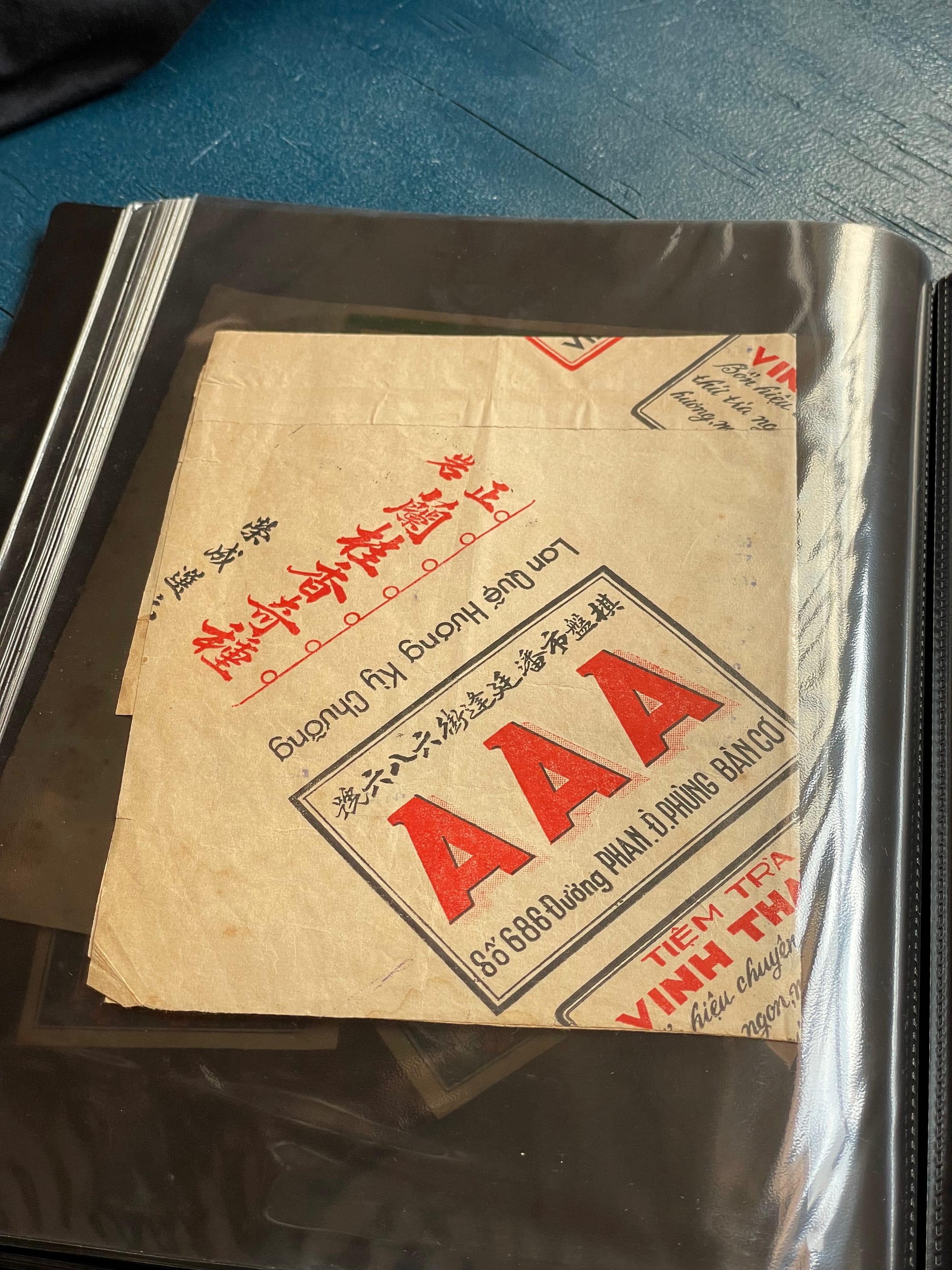
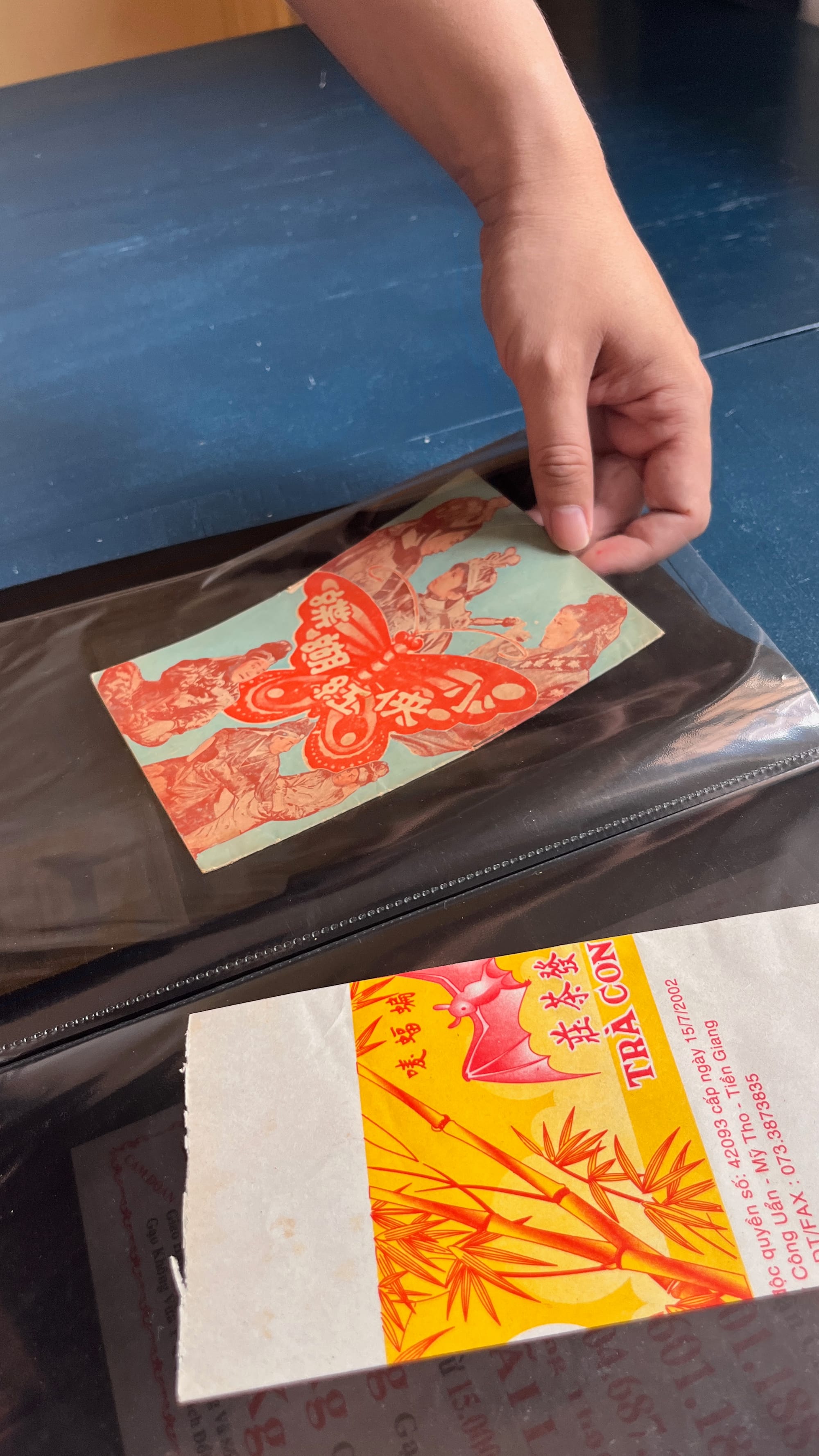
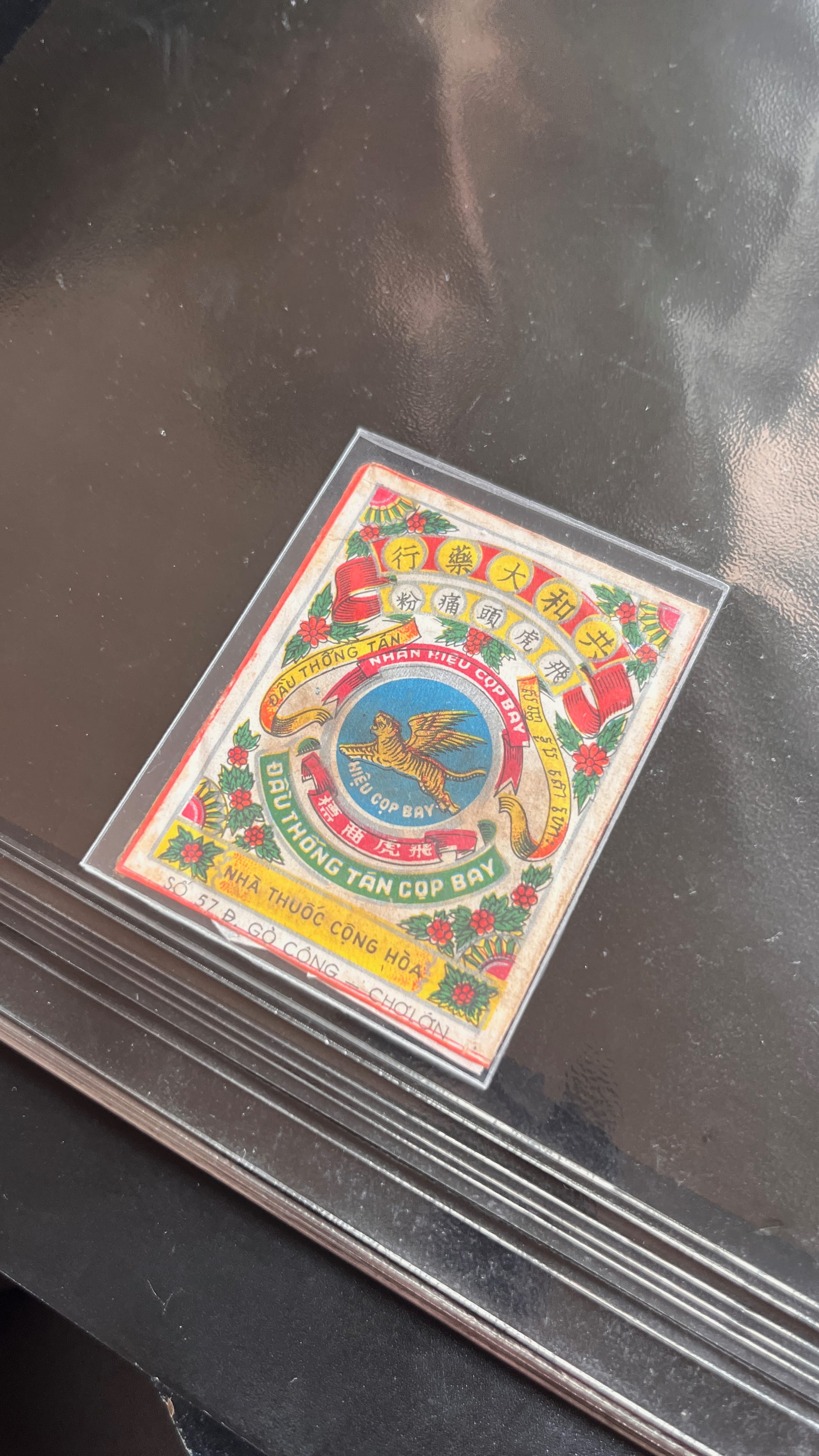
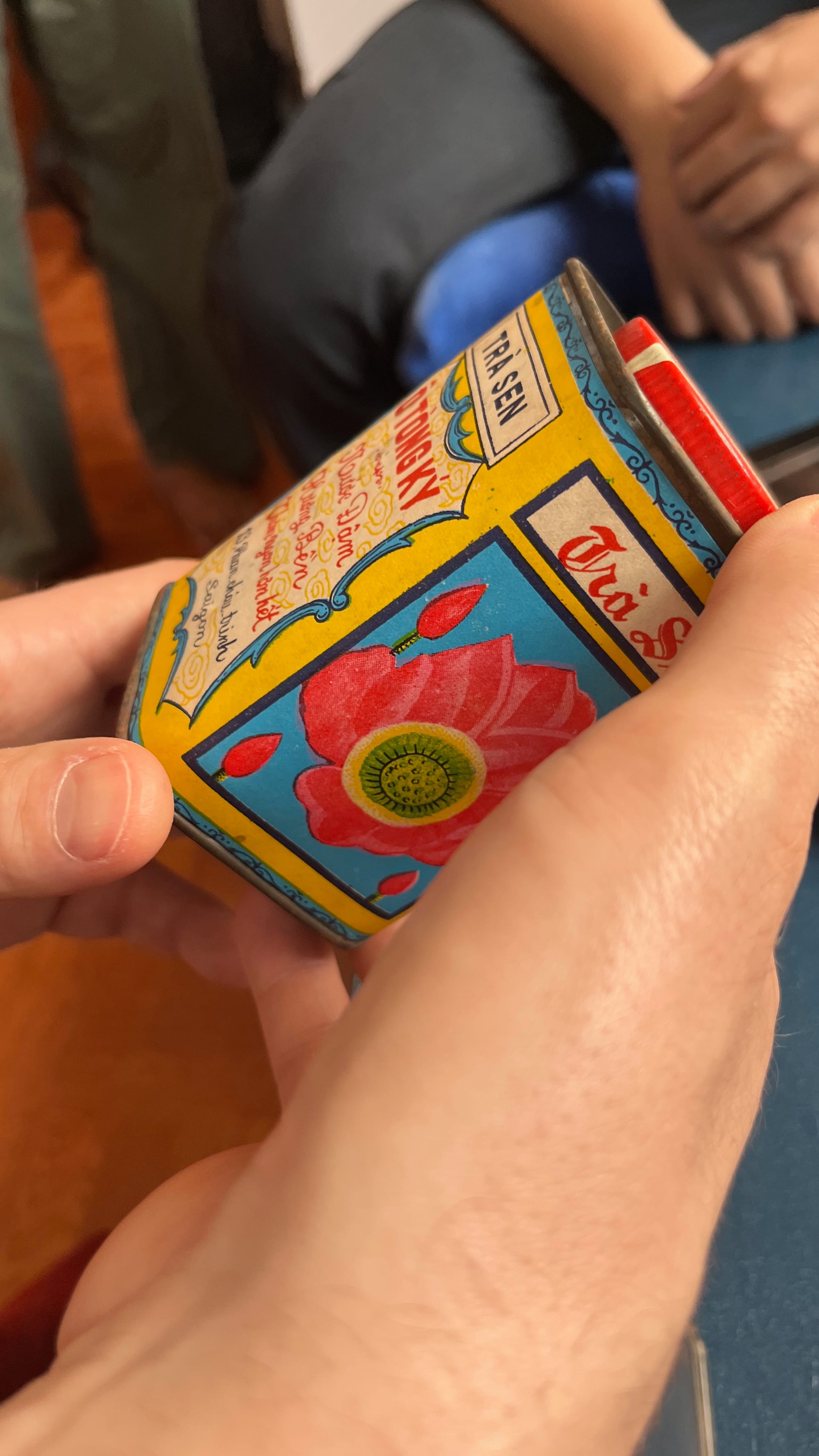
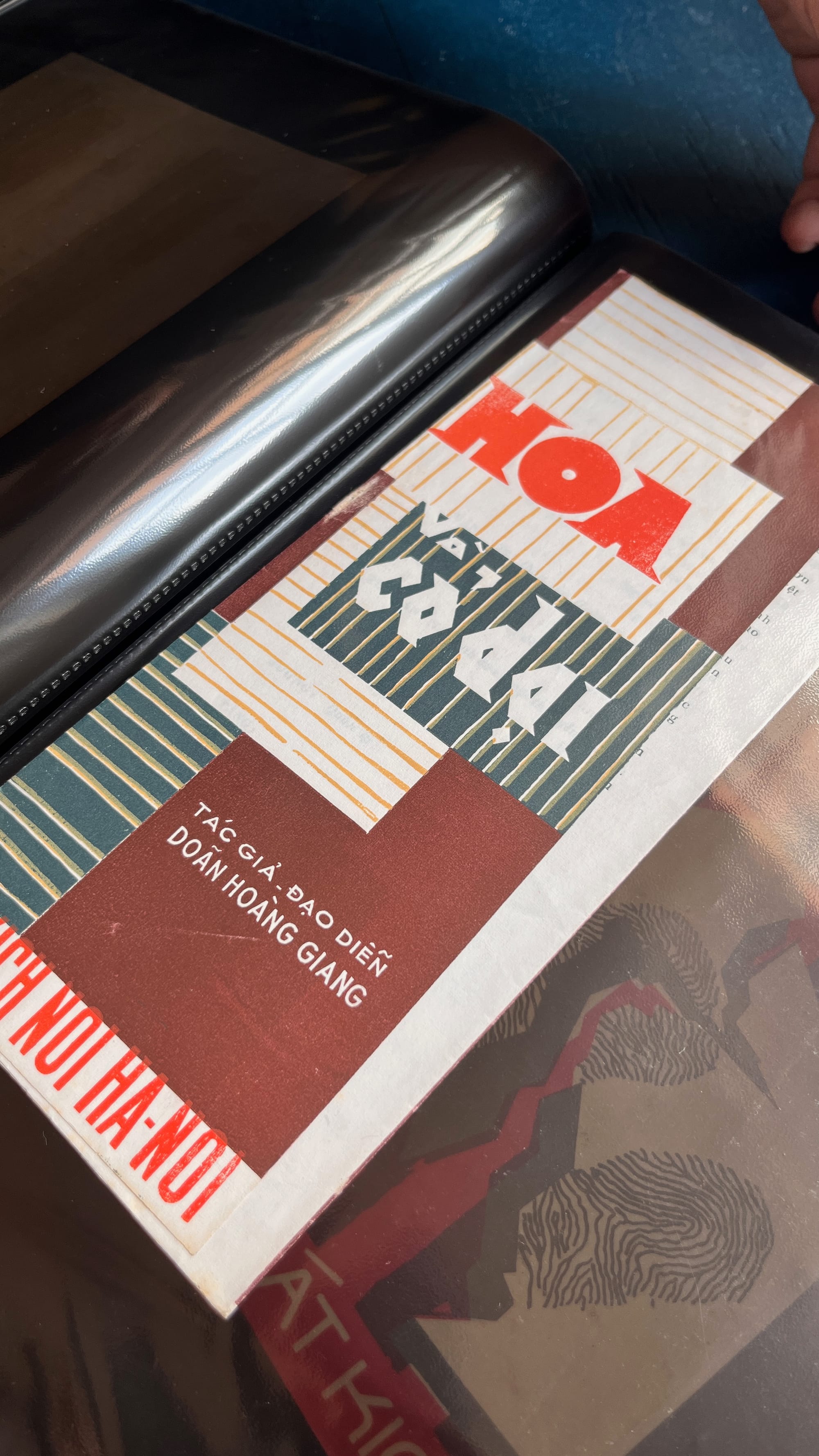
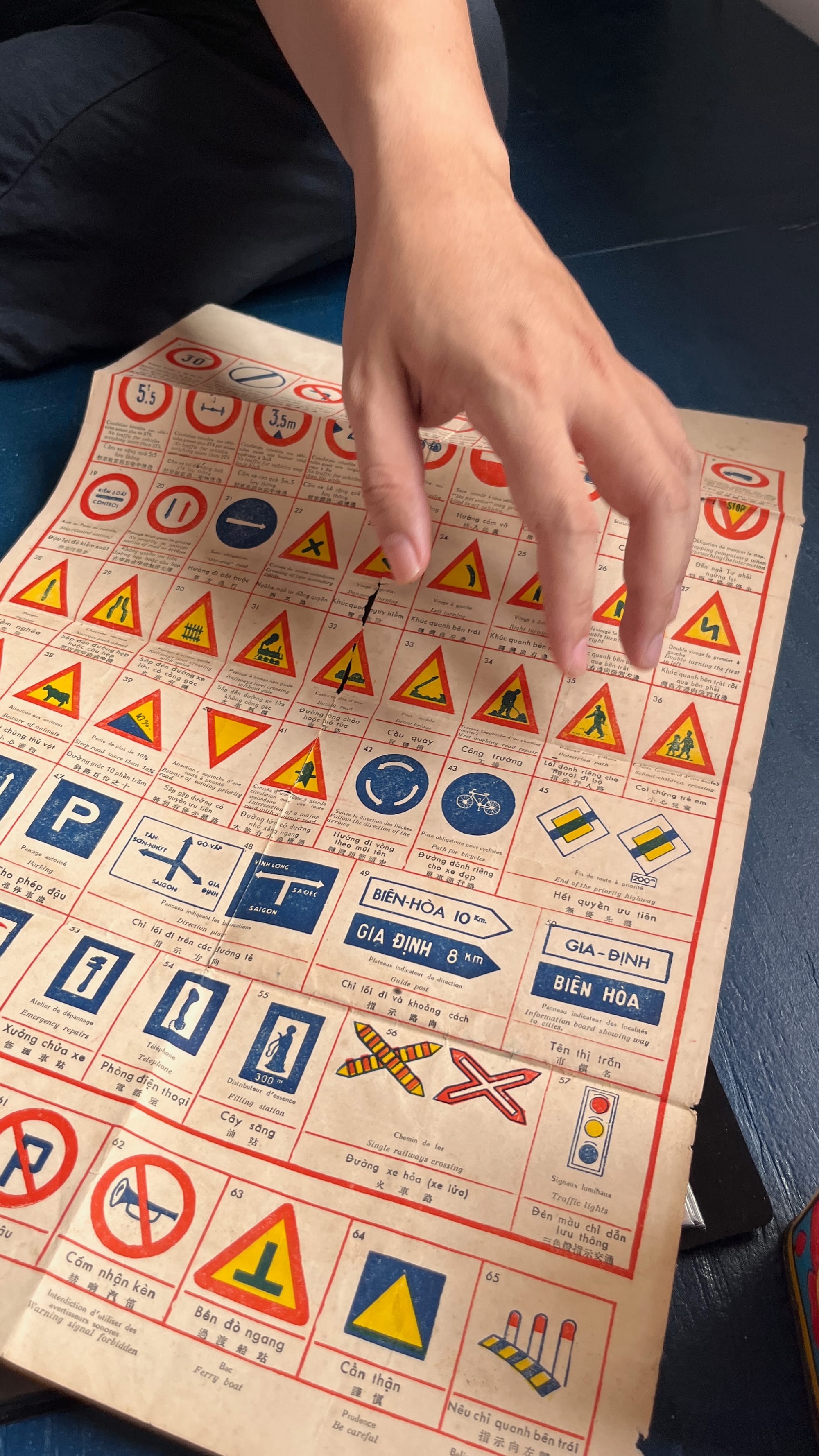
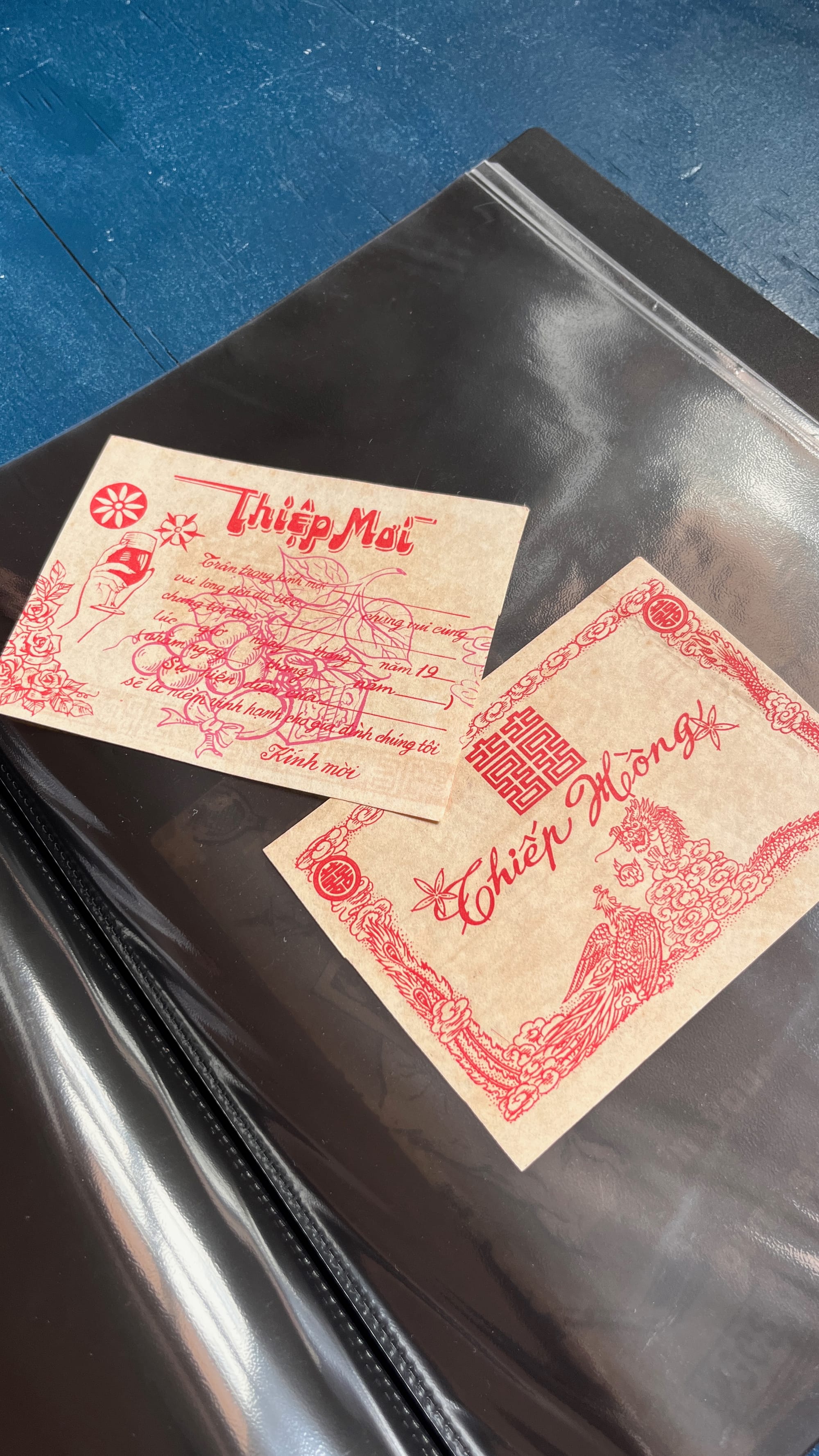
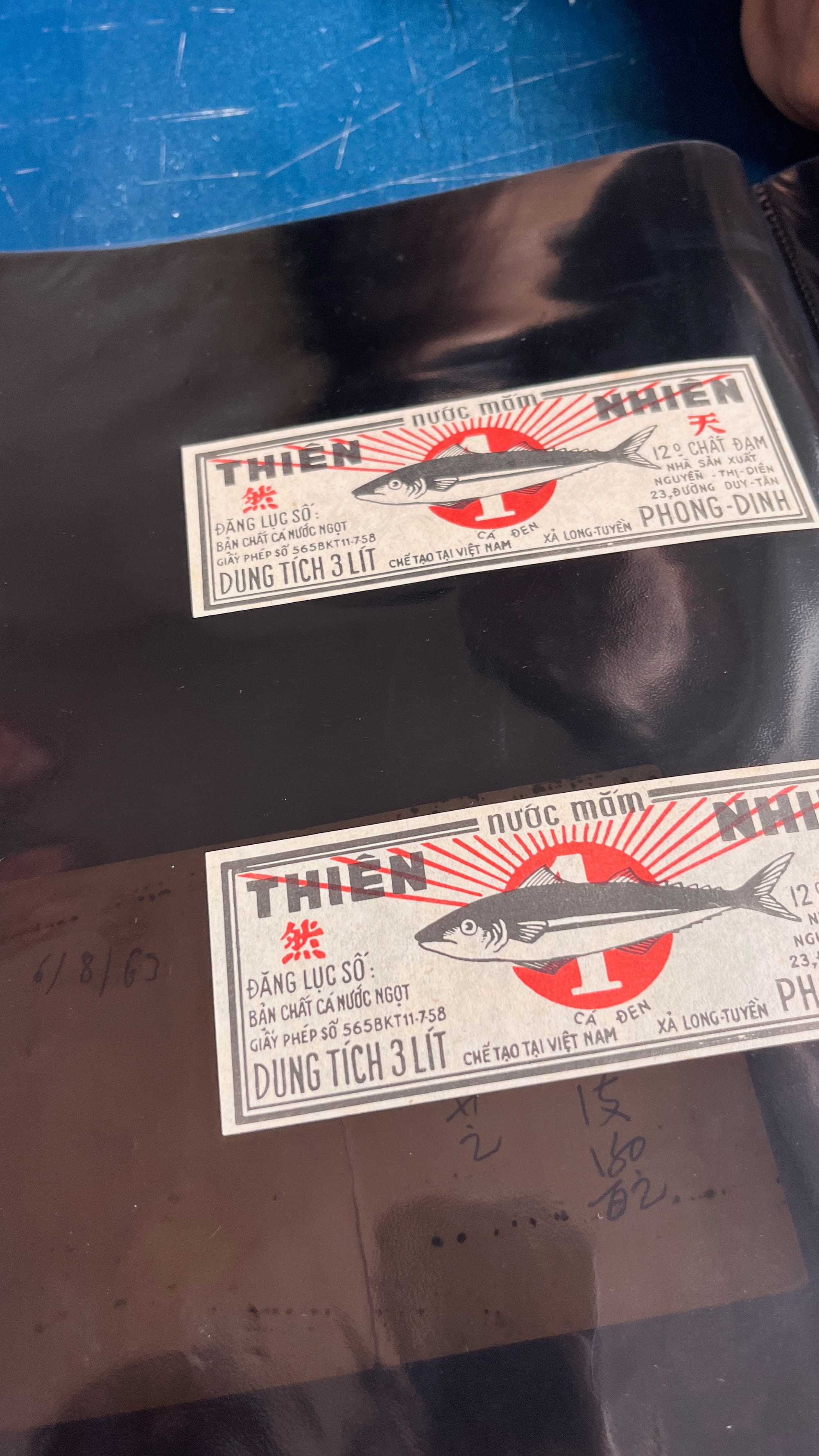
They're not only collecting visually stunning prints, but they also have more everyday items (aka ephemera) like a traffic sign instruction poster. I would say that they're an ideal archiver. They've also been collecting variations on the same design, which is quite interesting. Lastly, we cannot go without talking about the type specimens.
Photos by Frank Grießhammer
Design variations
Quốc and Đức were showing us their archive. Photos by Frank Grießhammer and I
Some of the Vietnamese type specimens Photos by Frank Grießhammer
It's now rare to find the usage of the traditional Chinese script in the Vietnamese context. And this is even the original drawing! I assumed that this piece of drawing was very old. Photos by Frank Grießhammer
They're showing us their first scanner!
They're explaining to me some of the articles that I was curious about. Photos by Frank Grießhammer
We had a chill time sitting and talking about our Southeast Asian context and how we can find ways to operate such a niche project. It's truly a challenge because we don’t have governmental support, especially in subjects like graphic design—let alone type design. There is no comparison to the kinds of archives I have visited in the Western world.
I hope whoever reads until here had a nice visual meal of the day! After looking back through all of my “Visual Ontbijt” pictures taken during this trip (and especially taken in this archive), I can say: even though Vietnamese letters share the same Latin base construction, they are genuinely full of life, or in my terms: they are full of tropical energy!